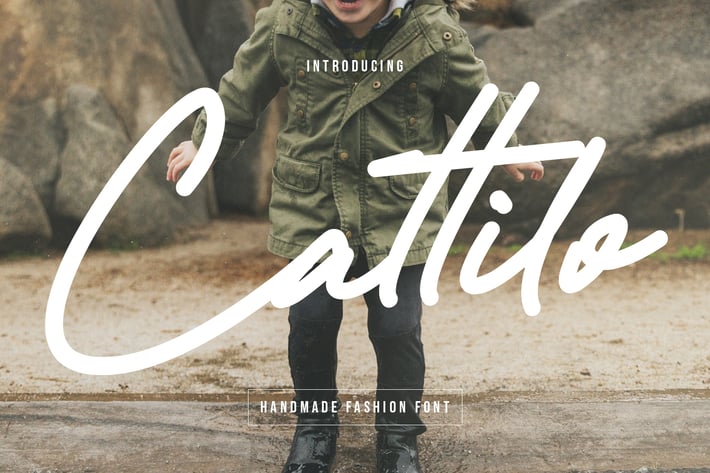
Cattilo Kids Handmade Fashion Font
Give your designs an authentic handcrafted feel. “ Cattilo” is perfectly suited to stationery, logos and much more.